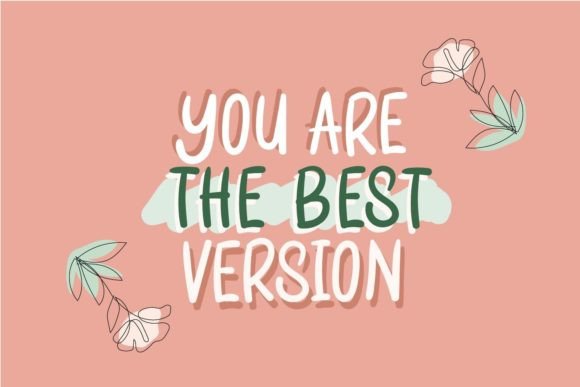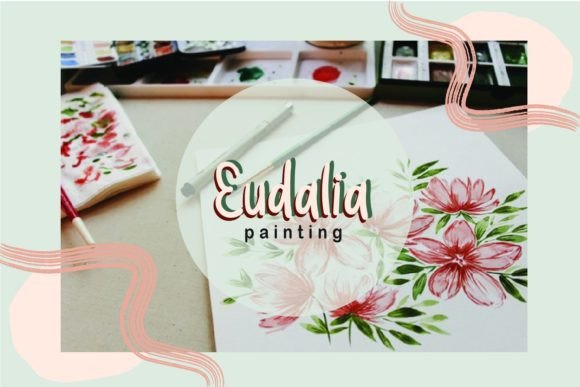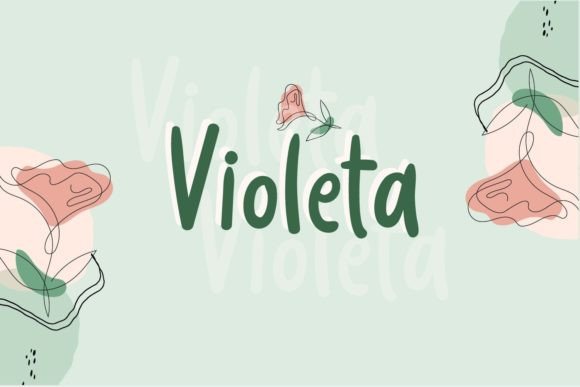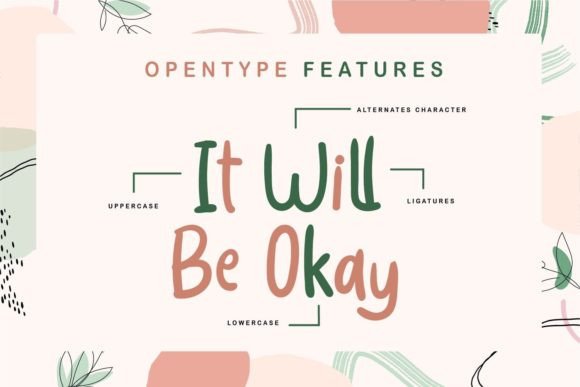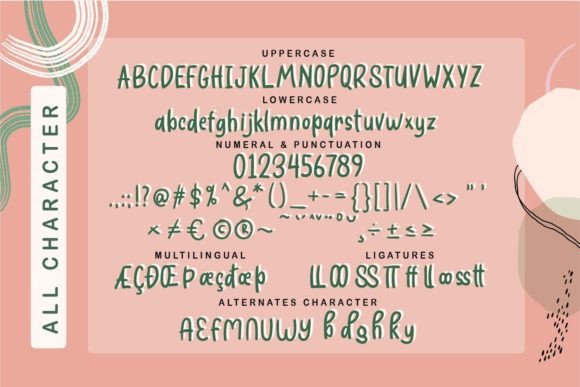
Introduction to Mathildies Font
Remember the feeling of excitement you get when you stumble upon the perfect design element for your creative project? The thrill of knowing that your vision is about to come to life, and that special something will elevate your work to the next level? For designers, this feeling is a regular occurrence, and it’s what drives us to keep pushing the boundaries of our craft. And, for those seeking that special something, we’re excited to introduce you to the Mathildies Font – a high-quality display font that’s sure to bring a smile to your face.
Designed to add a touch of joy and whimsy to any design, the Mathildies Font is an ideal choice for cartoon-related designs, children’s games, and any other creative project that requires a playful and lovable feel. With its wide range of glyphs and ligatures, this font is a valuable resource for designers looking to add a unique and personal touch to their work.
Key Features of Mathildies Font
- High-quality font with a unique, elegant design, perfect for creative projects and personal use.
- Unique characteristics include its modern, cursive style and extensive language support, making it a versatile design choice.
Honest Review: Mathildies Font
As a designer, I’m always on the lookout for high-quality design resources that can elevate my creative projects. Recently, I had the chance to work with the Mathildies Font, and I’m excited to share my honest review with you.
What works well: ✨ The Mathildies Font is incredibly versatile and can be used in a wide range of design projects, from logos and branding to typography and editorial design. The font’s elegant and sophisticated design makes it a great choice for creative projects that require a touch of sophistication.
Limitations: ⚠️ While the Mathildies Font is an excellent resource, it may not be the best choice for projects that require a bold or playful font. Additionally, the font’s complexity may make it difficult to customize or modify.
Overall impression: The Mathildies Font is a high-quality design resource that is perfect for creative projects that require sophistication and elegance. Its versatility and free download make it an excellent choice for designers, and its transparent background makes it easy to use in a variety of design contexts.
Mathildies Font is a versatile design resource that can be used in a variety of projects, including logos, business cards, and social media graphics. It’s perfect for anyone looking to add a touch of creativity and high quality to their design work.